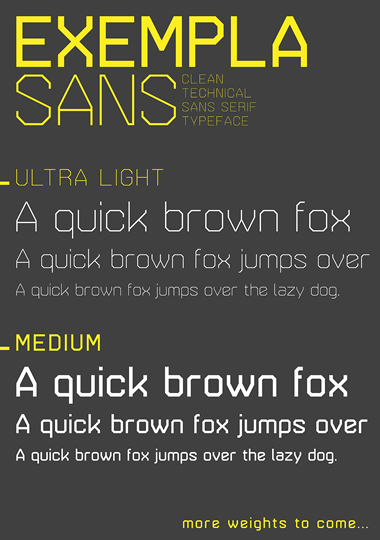
I like it!
Muy bien hecho, Shasta! Genial!
y el sampler: modernísimo.
I love it when families are fontstructed.
Exemplary work : the complete latin set ?!
I admire Exemplas. Oh yes. What I admire even more is your patience. Oh yes yes.
Brilliant :)
Great work shasta.
327 characters! Amazing.
This is a superb font.
@cayo: Muchas gracias... El sampler fue hecho en algunos minutos. De veces es increíble como una fuente cambia de impacto simplemente con una combinación de colores diferentes. En negro y blanco casi es aburrido, y en amarillo y gris ya parece supercool... And I love familystructing too. Just a shame it's so much work to raise one. I guess every fontfamily-father would confirm that. ;)
@igorrossi: Not quite the entire latin set; I've left out Extended Latin B.
@thalamic: Dude... and patience it took. I had to sit down, take some deep breaths, steady my focus and think about all the joy I've ever experienced because of fontstructing before I was able to write that "more weights to come..." on the sample, hehe... Kidding. I think the only thing that really put my patience to the test was the fact that you can't copy brickstacks.
Congratulations! FontStruct Staff have deemed your FontStruction worthy of special mention. “Exempla Sans Ultra Light” is now a Top Pick.
Fontstruct at its finest! 10/10
Little preview of the Slab Version I'm currently working on:
Reminds me to fs Sinclair